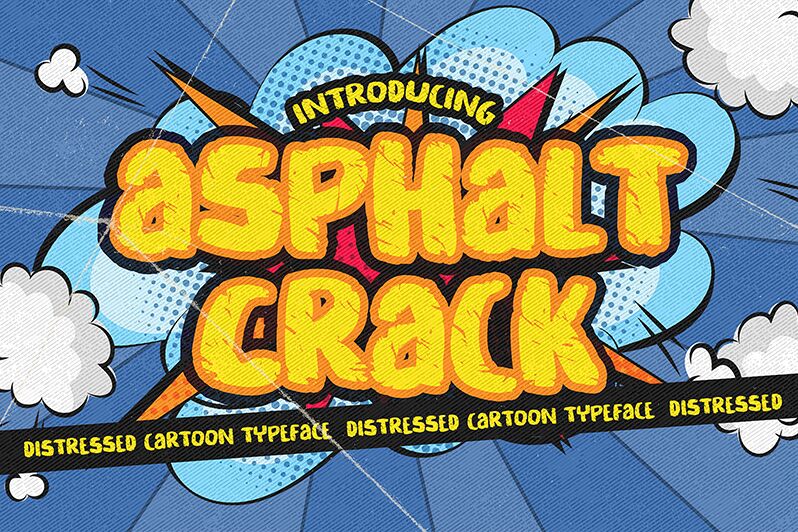
Asphalt crack
Asphalt Crack leaps off the page with its whimsical charm and extra-bold personality, a true masterpiece from the creative mind at Gassstype. This display font revels in its cartoonish allure, featuring a distressed style that brings an authentic dose of cheer to any project. Crafted with a blend of casual spontaneity and meticulous vectorization, Asphalt Crack embodies a playful aesthetic while ensuring readability.
Perfectly poised for branding escapades, logo creation, or packaging designs that aim to stand out with buoyancy and fun, this typeface offers designers a slice of visual joy. Its unique characteristics-born from the swift strokes on Procreate before being refined into digital perfection-present an unmatched naturalness that adds modern flair to your text. Whether on screen or print, Asphalt Crack is set to infuse your creative endeavors with its distinctive and cute personality.